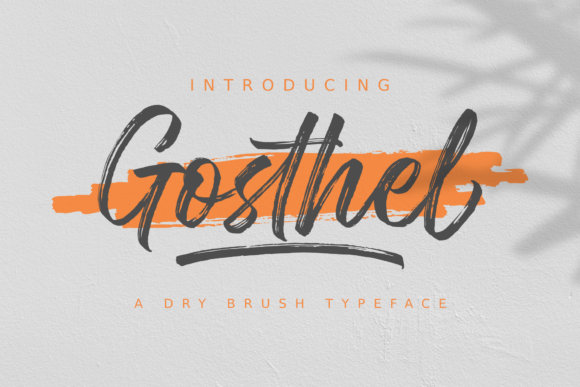
Introducing Gosthel, the enchanting script font that will cast a spell on your designs! This captivating font, meticulously crafted by Sibelumpagi Studio, is a symphony of flowing brushstrokes, reminiscent of a calligrapher's magic. Gosthel's graceful curves and expressive lines evoke a sense of timeless elegance, while its modern flair adds a touch of contemporary chic.
Dive into a world where creativity flourishes and individuality shines. Gosthel is the perfect choice for those seeking a font that speaks to their unique style. Whether you're a seasoned designer or just starting your creative journey, Gosthel will elevate your projects with its effortless charm and versatility.
Picture this: your designs adorned with Gosthel's enchanting allure. Logos that exude personality, social media posts that captivate your audience, wedding invitations that leave a lasting impression, and branding materials that ooze sophistication. Gosthel becomes the thread that weaves your creative tapestry, adding a layer of visual intrigue that sets your work apart.
But Gosthel is more than just a pretty face. It's a versatile performer that effortlessly adapts to a wide range of design styles. From whimsical and playful to classic and elegant, Gosthel seamlessly blends into your creative vision, becoming an extension of your imagination. Its carefully crafted glyphs ensure pristine clarity and legibility, making Gosthel suitable for both print and digital media.
With Gosthel as your creative companion, you'll discover a new level of design freedom. Its flowing characters gracefully dance across your canvas, inviting you to explore the depths of your creativity. So, unleash your inner artist and let Gosthel guide you towards design masterpieces that leave an unforgettable mark.